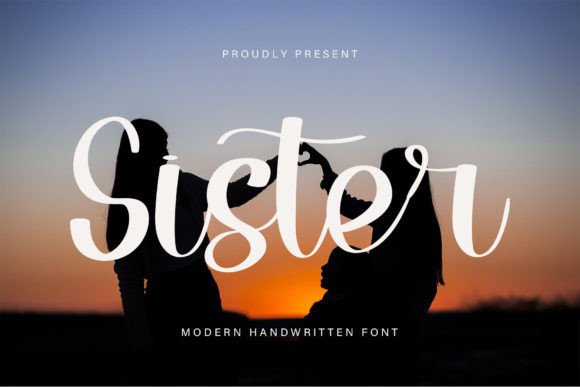
Enter the world of Sister Font, a charming script font that will captivate your senses with its playful personality and whimsical charm. This mesmerizing font, handcrafted by the talented pinkmeca, is the perfect fusion of creativity and elegance, waiting to elevate your designs to new heights.
With its irregular and lively letterforms, Sister Font dances across the page like a playful melody, creating a sense of individuality and uniqueness in every word. Its natural, handwritten style exudes a warmth and authenticity that will add a personal touch to your designs, making them stand out from the crowd.
Whether you're crafting a captivating business card, designing a heartfelt invitation, or creating a vibrant logo, Sister Font is your perfect companion. Its versatility knows no bounds, allowing you to explore a world of design possibilities and unleash your creativity like never before.
So, dive into the enchanting world of Sister Font and let your imagination soar. With its undeniable charm and endless versatility, it's the ultimate choice for designers seeking to create truly captivating designs that leave a lasting impression.